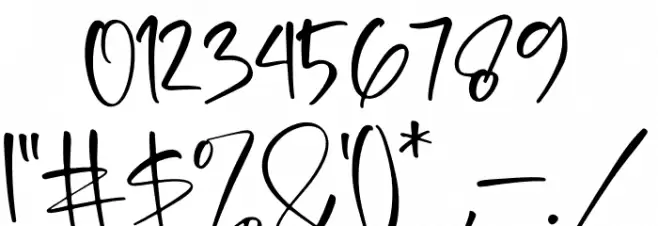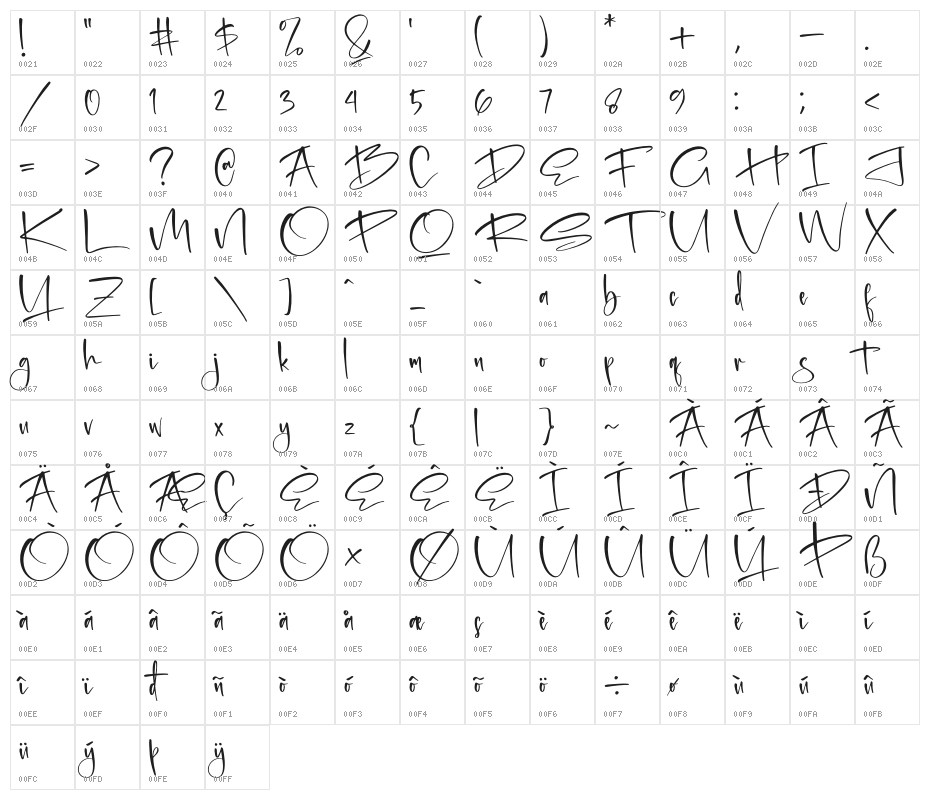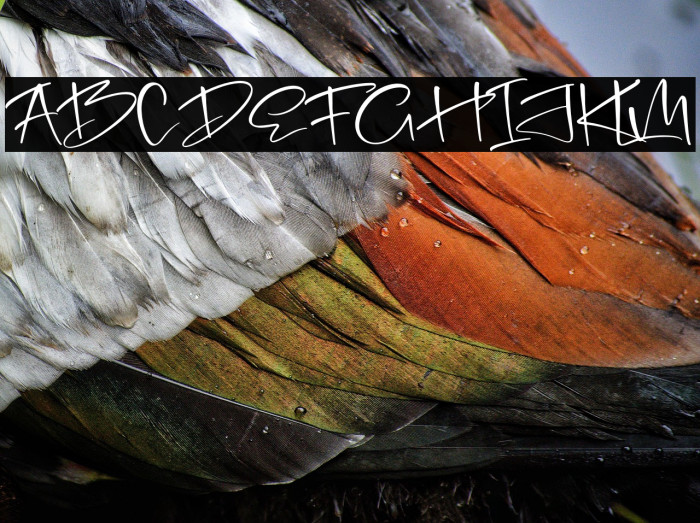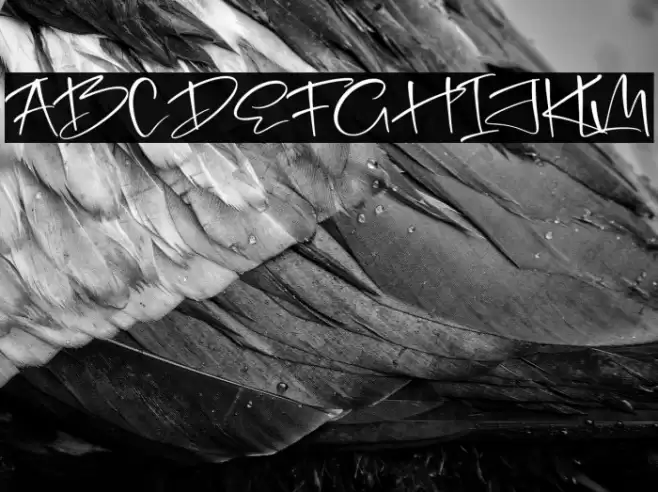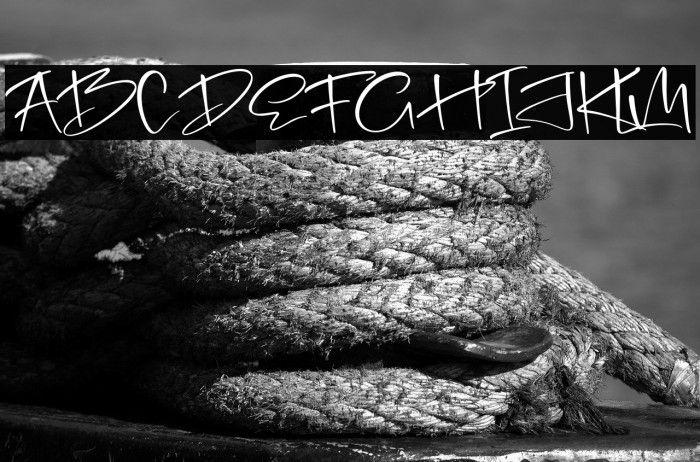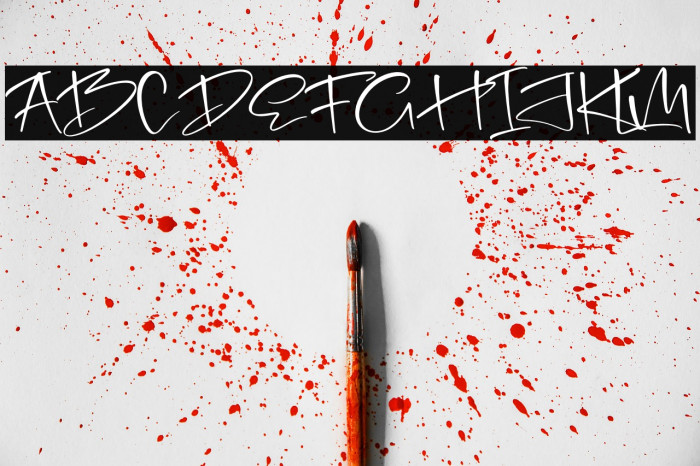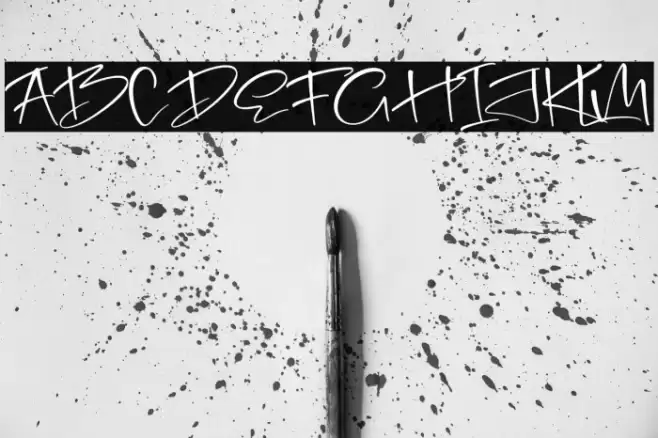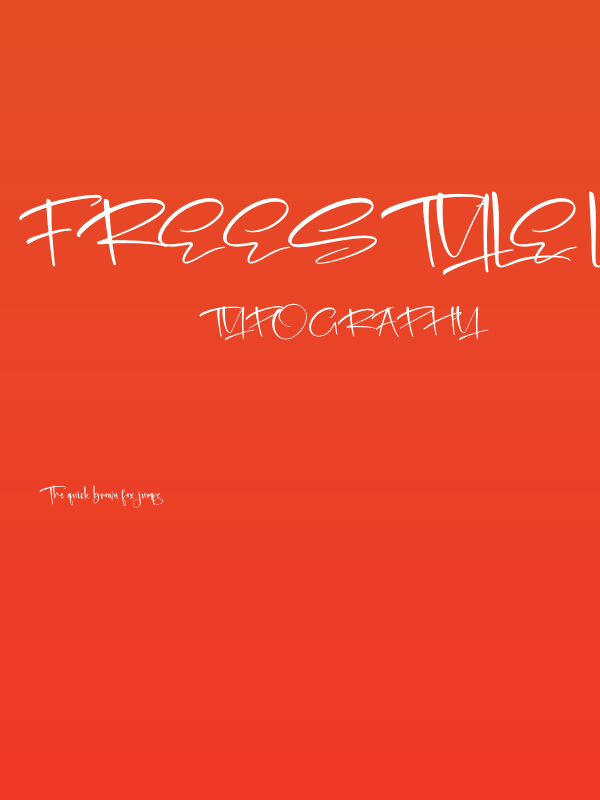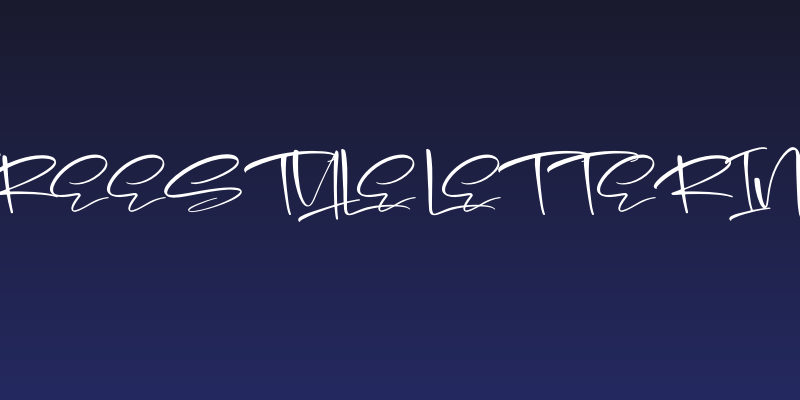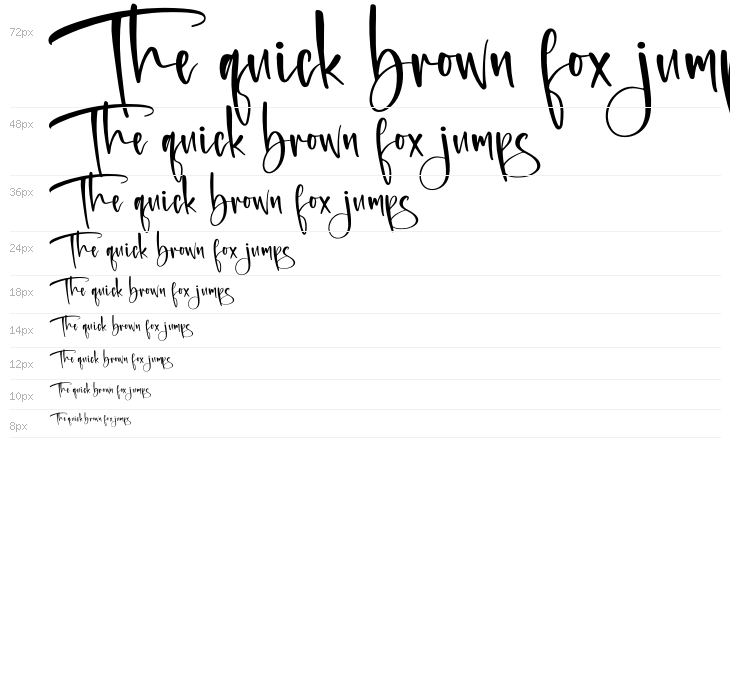
Freestyle Lettering Font
Freestyle Lettering Description
This font features a dynamic and expressive style, characterized by its freestyle, handwritten appearance. The uppercase letters are bold and angular, with a sense of movement and energy, while the lowercase letters maintain a more fluid and connected form. The numerals and special characters continue this theme, offering a cohesive look across all elements. The strokes vary in thickness, adding a lively and spontaneous feel. Overall, this font exudes a casual yet artistic vibe, making it suitable for creative and informal applications.
| Proposed Projects | Ideal for creative projects such as posters, invitations, and branding materials that require a personal and artistic touch. |